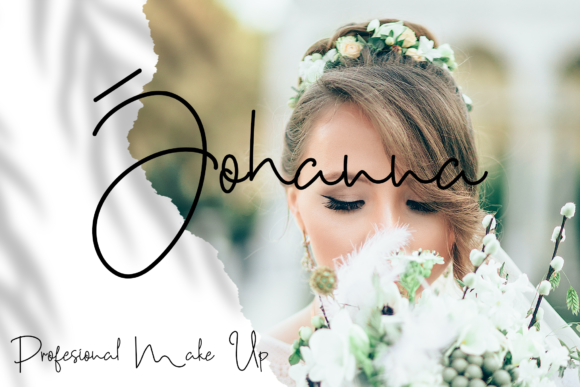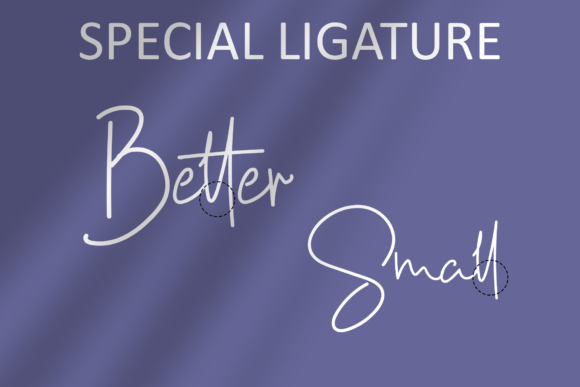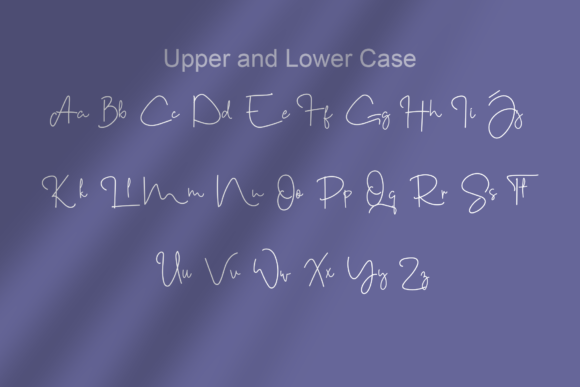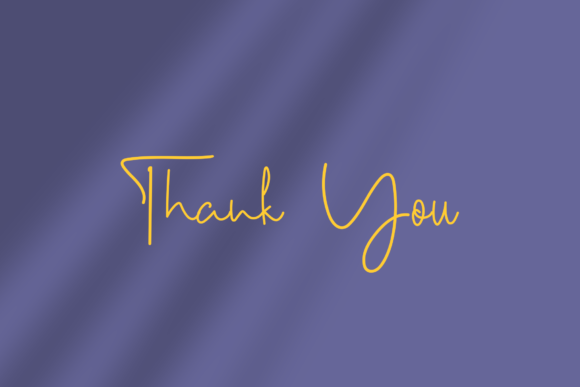
Discover the Artistic Charm of Gendhis Java Font
As designers, we’ve all been there – staring at a blank canvas, trying to bring our vision to life. The spark of creativity hits, and suddenly, ideas start flowing. But, it’s what comes next that can make or break the project. The right font can elevate your design, making it truly special. This is where Gendhis Java Font comes in – a delicate, handwritten font that’s perfect for adding a touch of warmth and elegance to your projects.
Whether you’re working on a logo, invitation, or social media graphic, Gendhis Java Font is a valuable addition to your design toolkit. Its simple yet dainty style makes it versatile and easy to use, allowing you to experiment with different variations and create unique designs that reflect your personal style. With Gendhis Java Font, the possibilities are endless, and the fun is just beginning.
- Unique Characteristics: Gendhis Java Font features a distinctive, modern design with a unique blend of geometric and organic elements, making it perfect for digital products and applications.
Gendhis Java Font Review
Gendhis Java Font is a unique, modern script font that offers a lot of character. Here’s what I like about it: ✨
- Playful, handwritten feel that adds a touch of whimsy to designs
- Good legibility, even at smaller font sizes
- Works well in digital and print formats
- Supports a wide range of languages
- Lack of bold and italic weights, which may limit its versatility
- May not be suitable for formal or traditional designs
- Some characters may be difficult to read at very small font sizes
Overall, Gendhis Java Font is a fun, creative choice for designers who want to add a personal touch to their projects. While it may not be the best fit for every design, it’s a great option for those looking to inject some personality into their work. With its playful feel and good legibility, it’s a solid choice for digital and print projects alike.
Tips: Use Gendhis Java Font for titles and headings to add a modern and sleek touch to your design.
Tips: Use Gendhis Java Font for typography-heavy designs to add a unique and modern flair.
Tips: Use Gendhis Java Font for titles and headings to add a professional and modern touch to your presentation or document.
Gendhis Java Font is suitable for:
1. Modern and sleek designs.
2. Typography-heavy designs.
3. Professional presentations and documents.
4. Titles and headings.